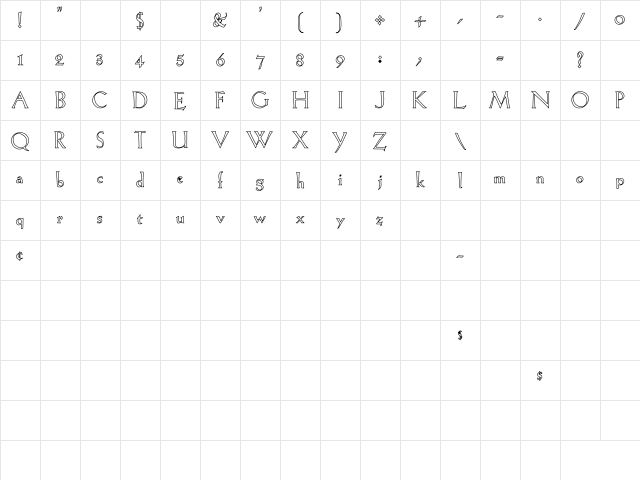
Design Context for LilHvy Hollow
LilHvy Hollow is a composed and adaptable typeface that performs quietly and consistently across a wide range of design contexts.
Pro Tip: Use LilHvy Hollow in both headline and body roles to test its range before committing to a single application.